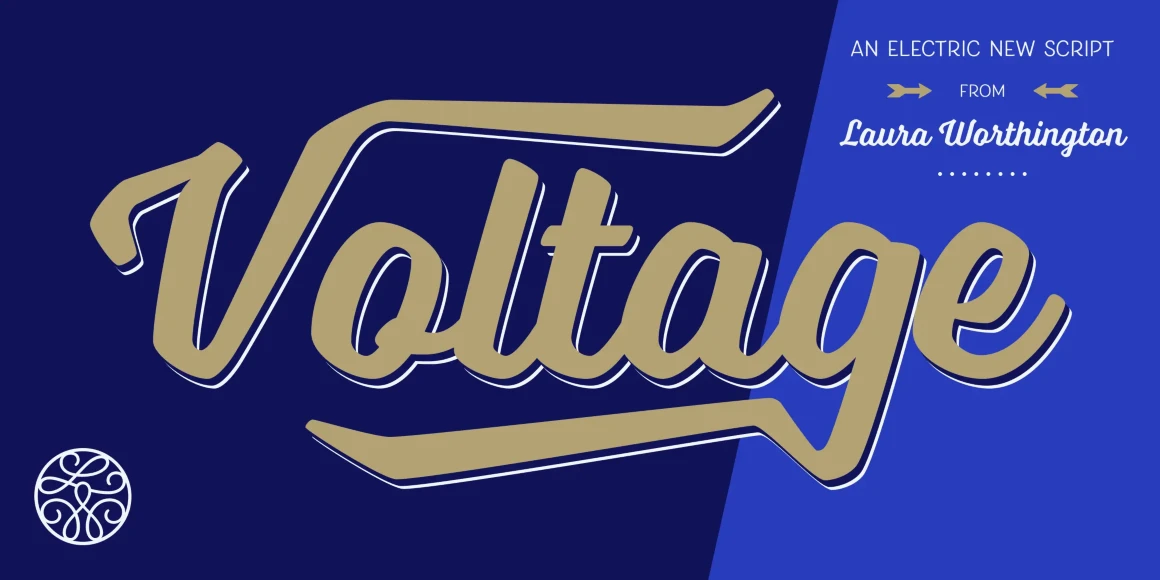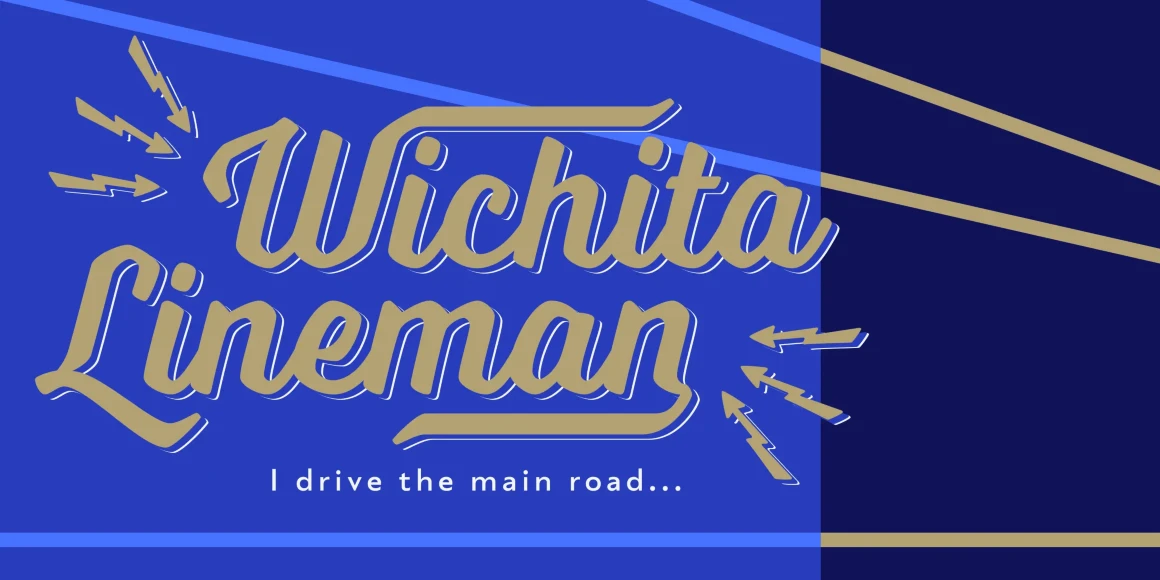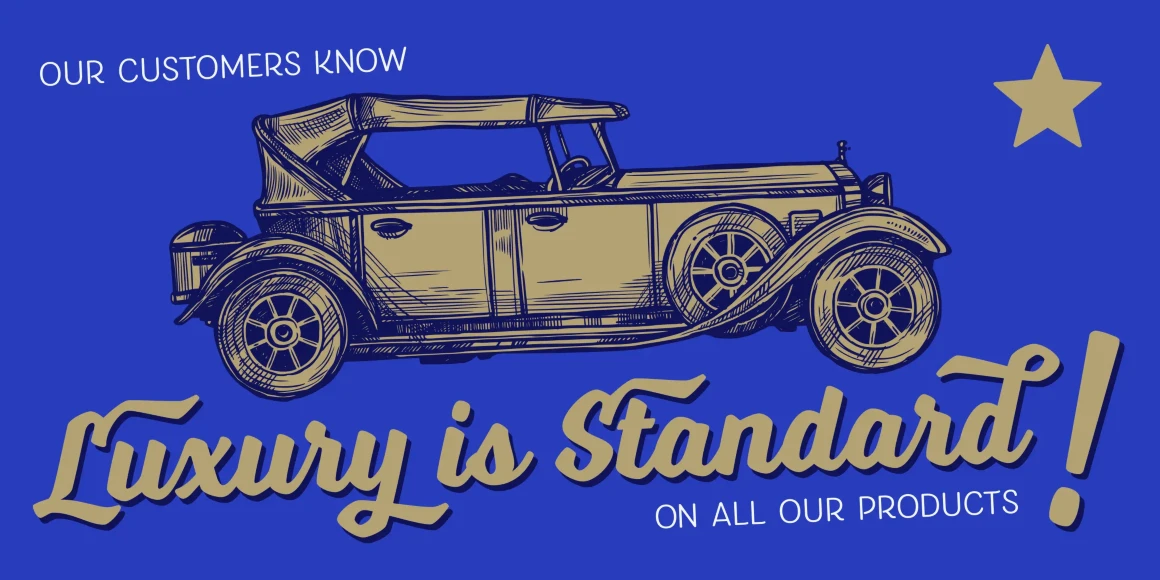
Voltage Fonts
Voltage
Voltage is an unexpected and energetic standout in the world of script fonts. Evocative of the metal lettering on automobiles of the past, Voltage references the late days of the Industrial Age; its structured lettering emphasizes practicality and uniformity that is assertive, yet down-to-earth. Voltage provides 154 unique swash designs (a total of 348 swash variations), 39 alternates, and 15 ligatures.